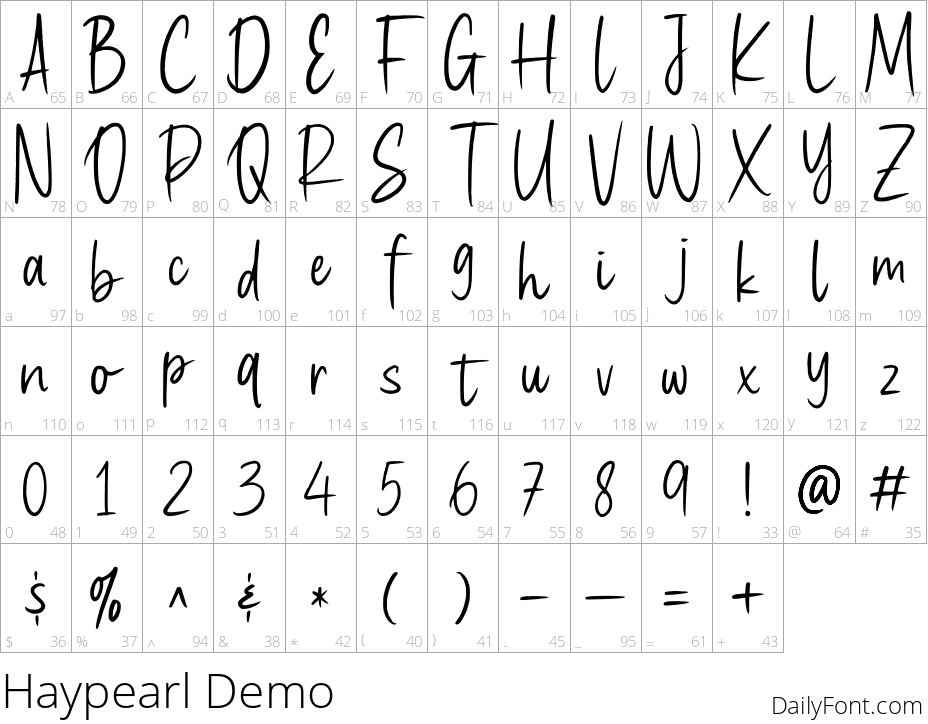
Haypearl
Haypearl is a casual, handwritten font that was created to add a fresh, attractive appearance to designs. It has a flowing style that is both elegant and relaxed. This font is ideal for those who want to add a touch of personality and charm to their projects.